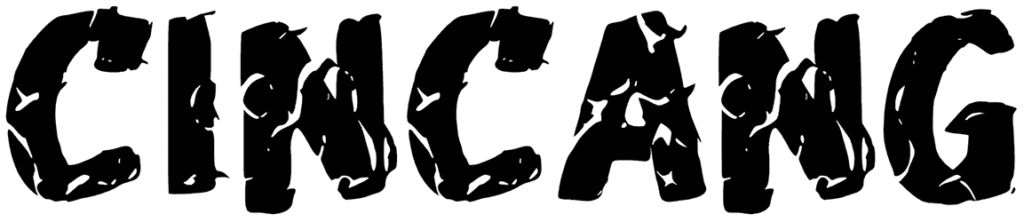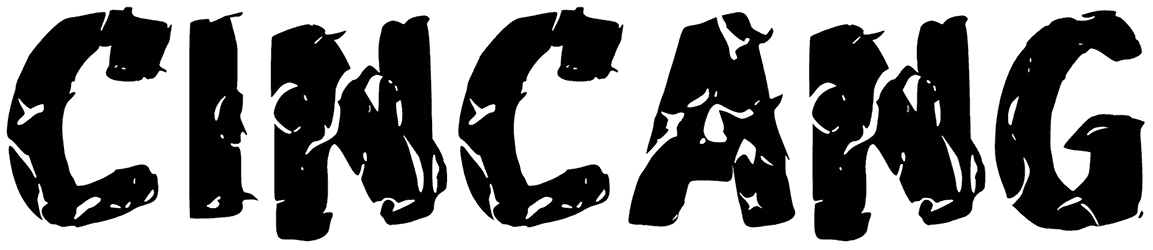
c Cincang Font
Sometimes hiring a destroy font such as c Cincang can increase a sense of grunge, dynamism, and comical in content like video game flyers, apps, movie titles, album covers, and others. The messy style of its characters transforms it into a game-changing font to develop and spark the interest of the audience from the first second.